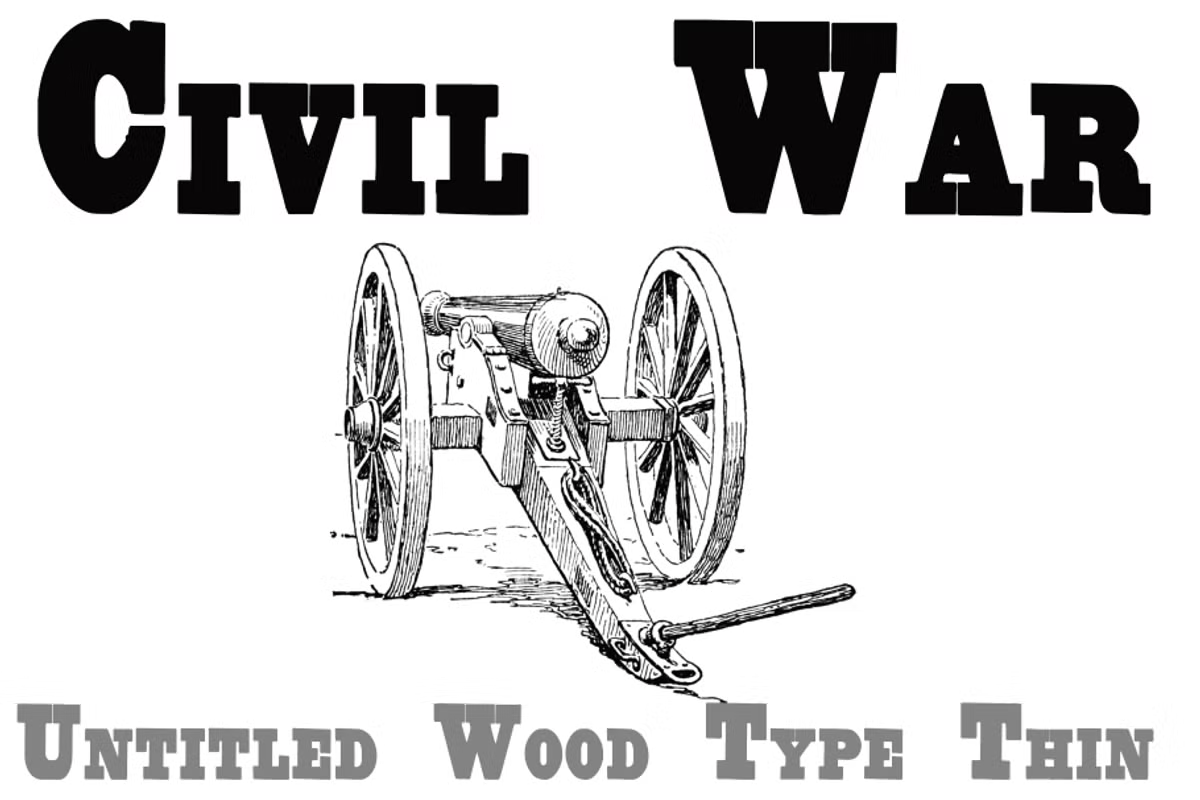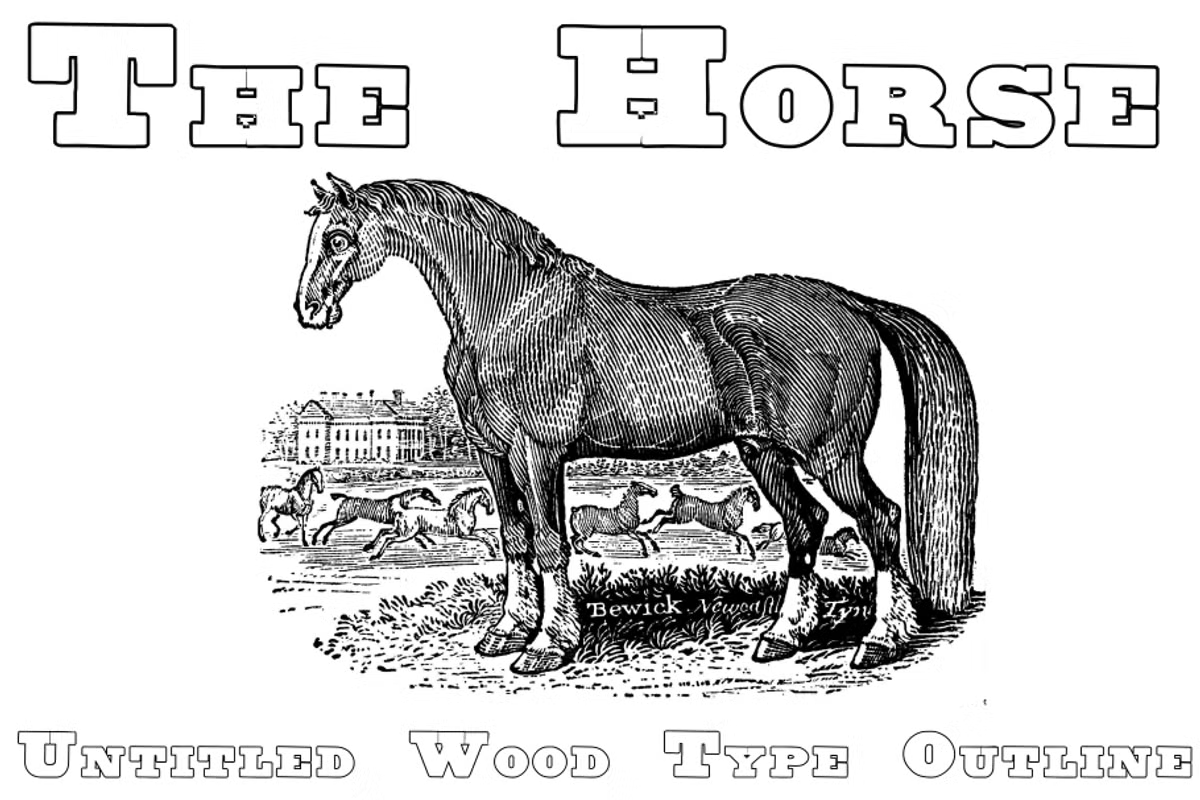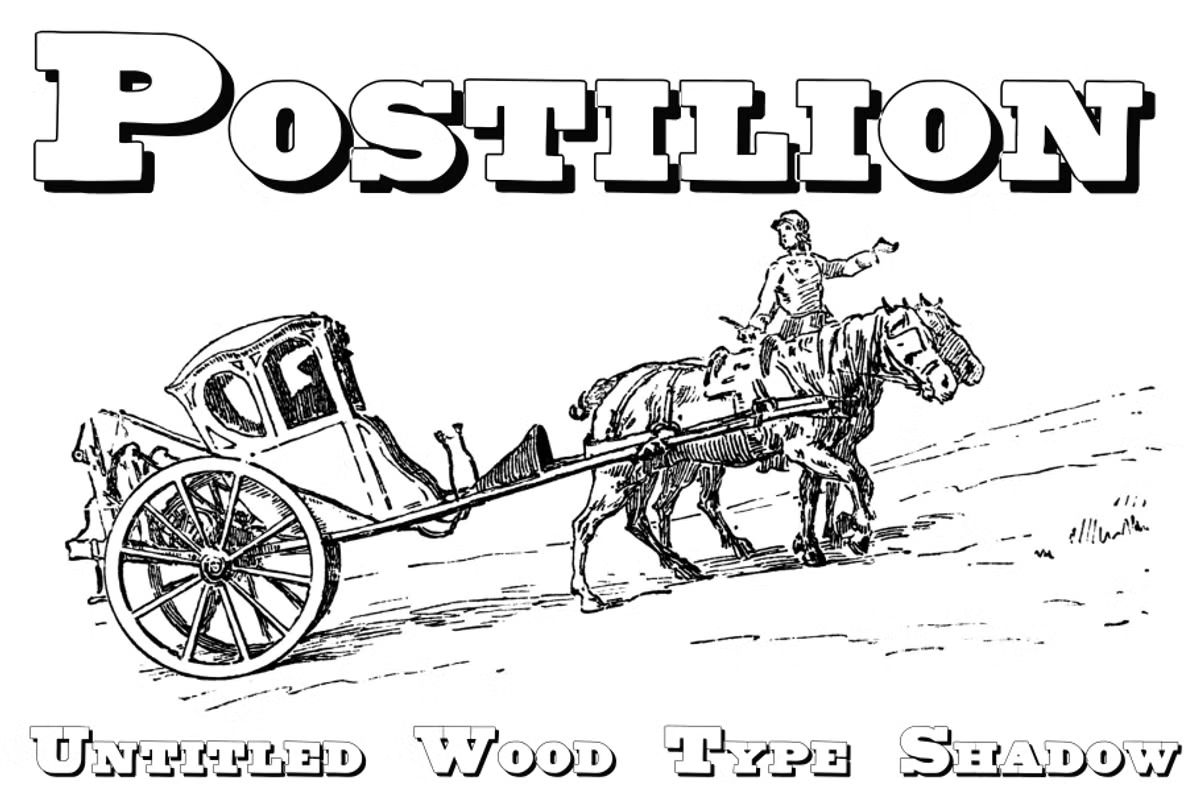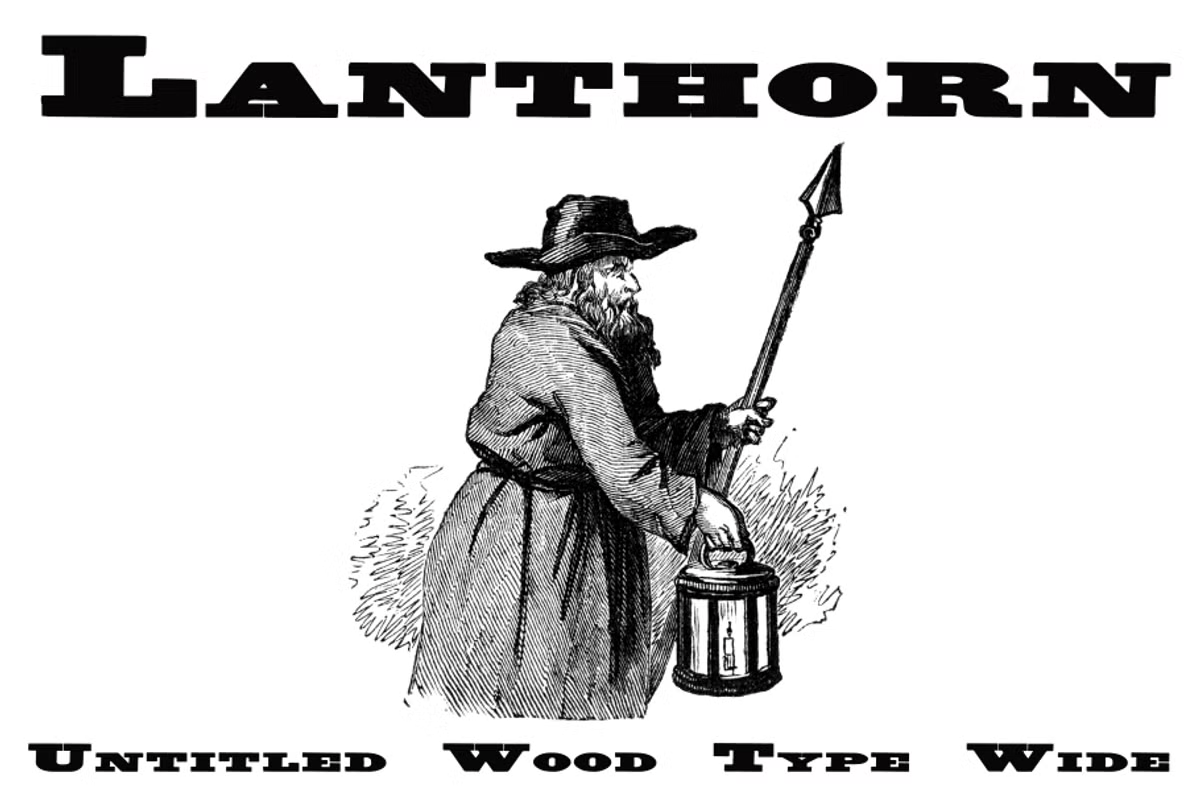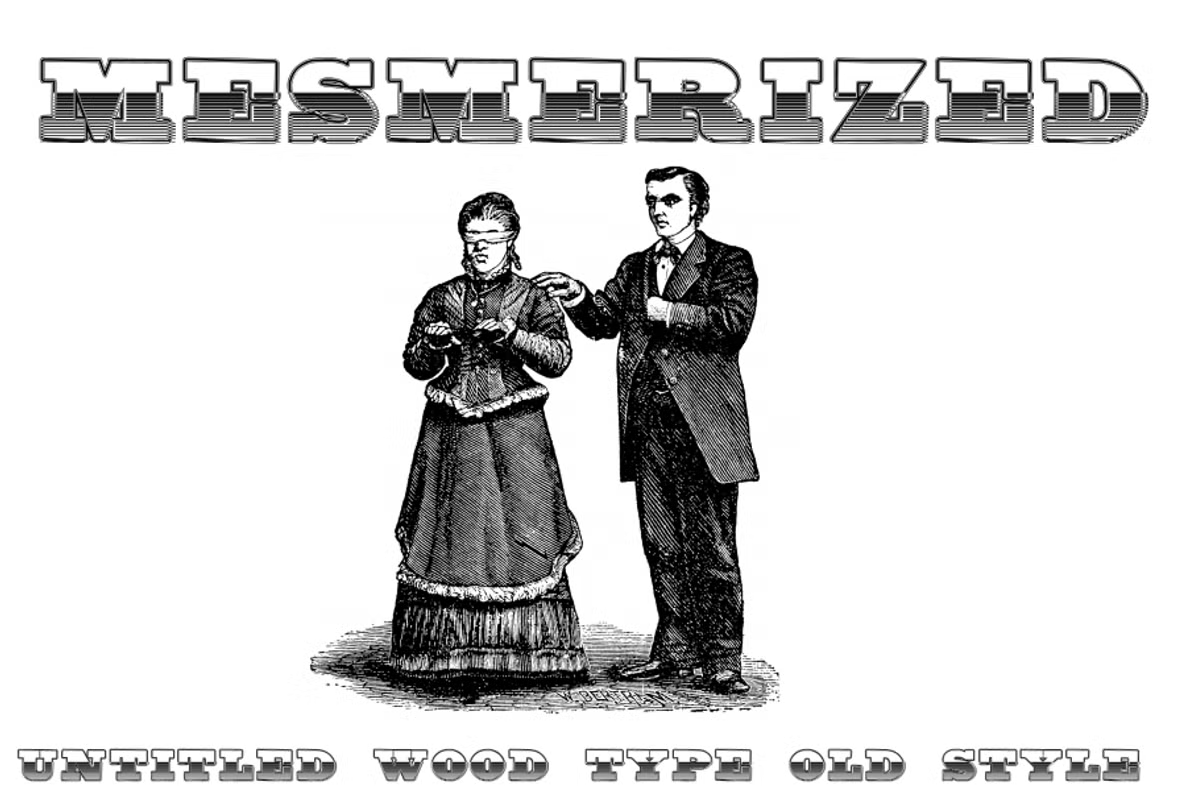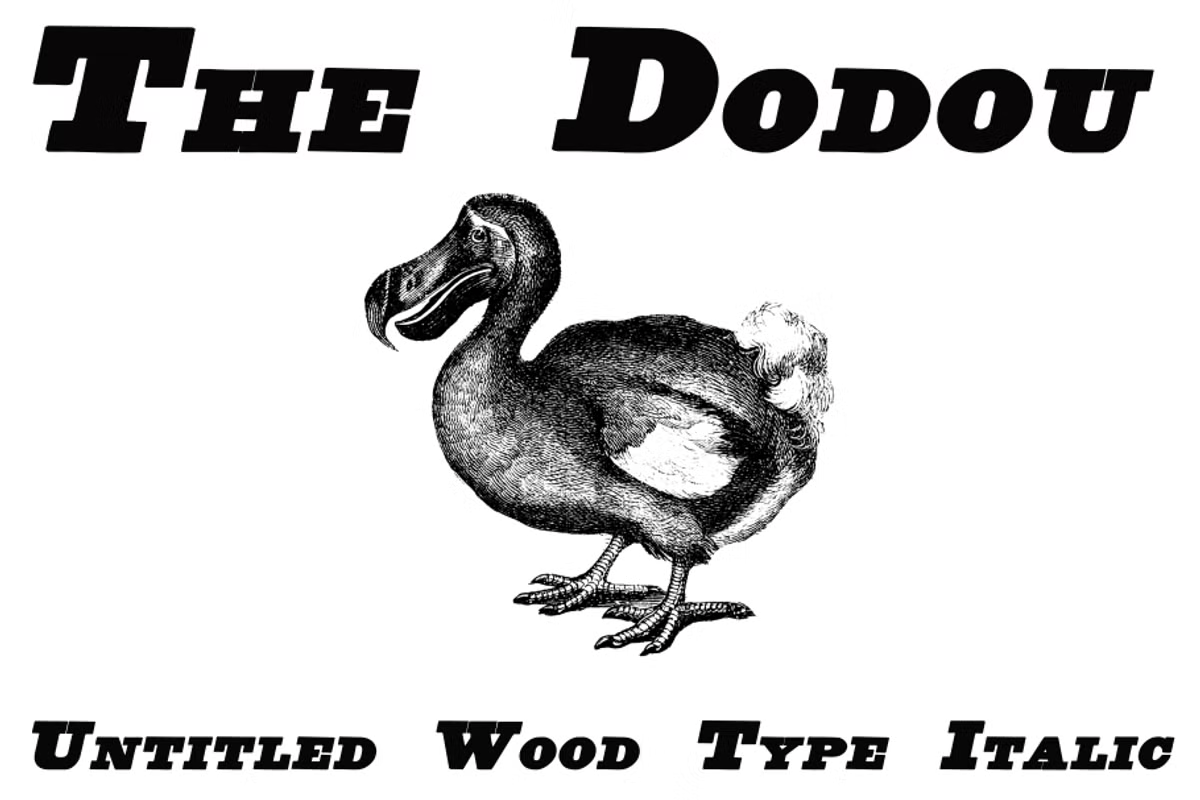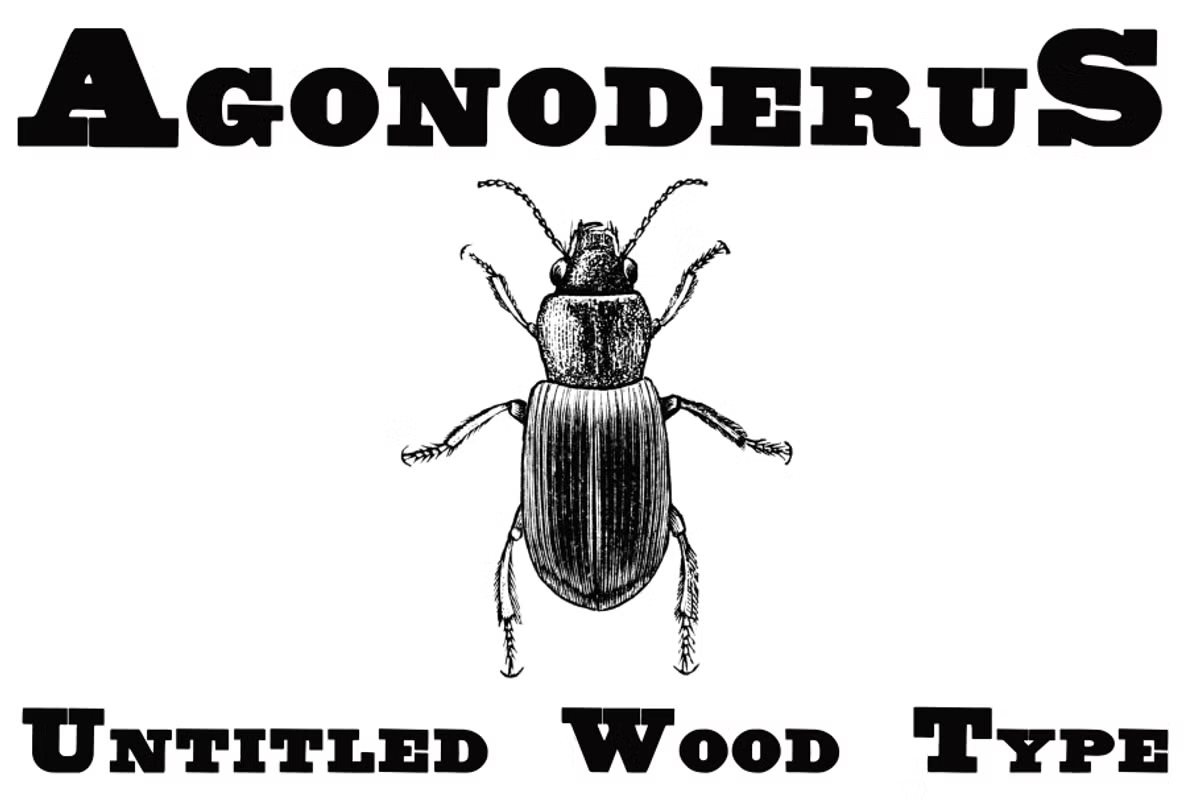
Untitled Wood Type
Untitled Wood Type is an antique and ancient serif font that captures the essence of bygone eras, with a classic design that evokes a sense of history and tradition. The letters are ornate and detailed, with flourishes and serifs that create a sense of elegance and sophistication. Its timeless style makes it perfect for historical or cultural projects, such as museum exhibits, educational materials, or period-themed publications.